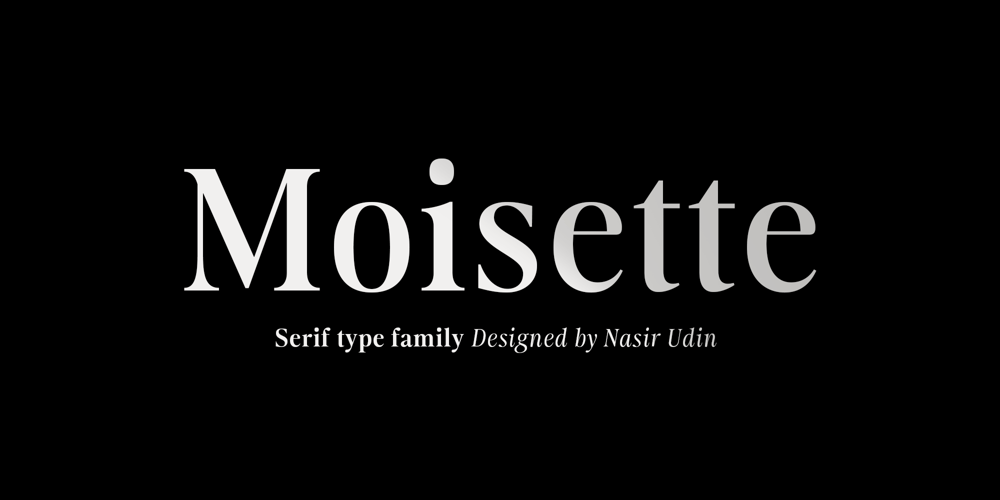
Moisette Font Family was designed by Nasir Udin and published by Nasir Udin. Moisette contains 14 styles and family package options. Moisette is a serif typeface inspired by the classic and the modern.Developed in 7 weights with its complementary italics, Moisette offers many possibilities to be applied in many graphic, editorial, or branding projects, for short paragraph or display purposes.Moisette has high-contrast stem ratio to give it an elegant touch and luxurious appeal, and its high x-height makes sentences more legibility. It supports Latin and Cyrillic character set (incld. Bulgarian & Serbian Cyrillic).